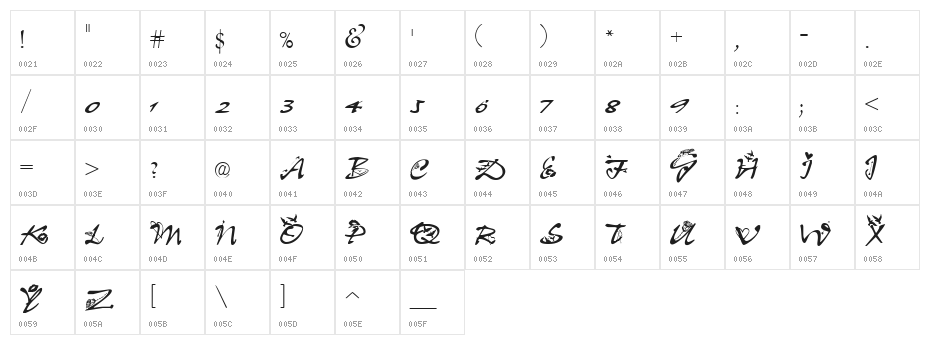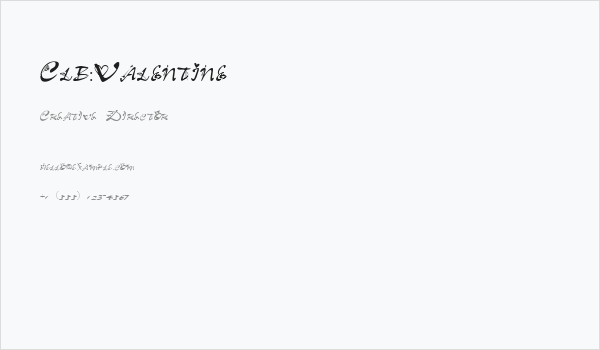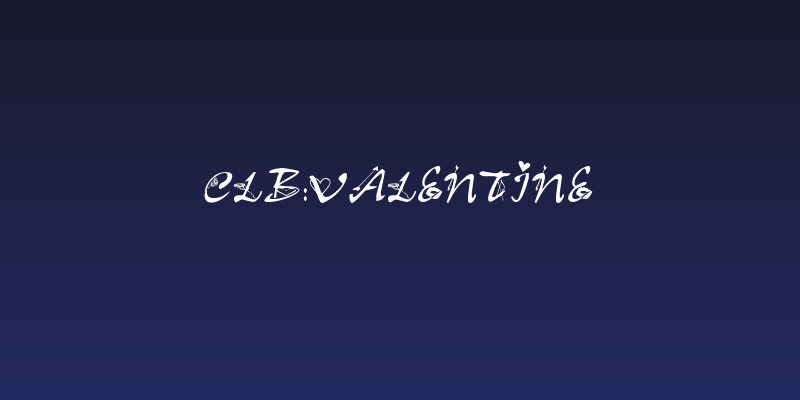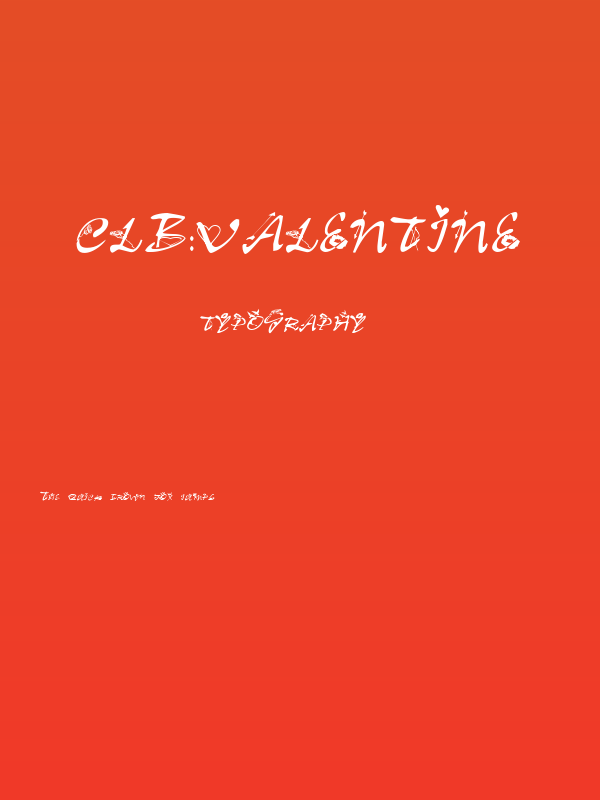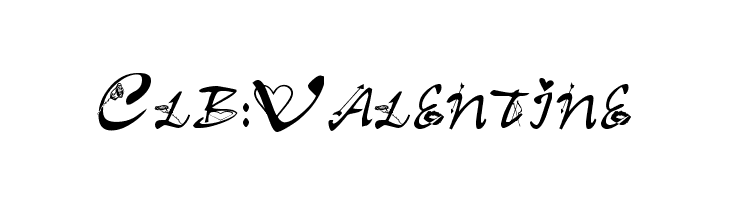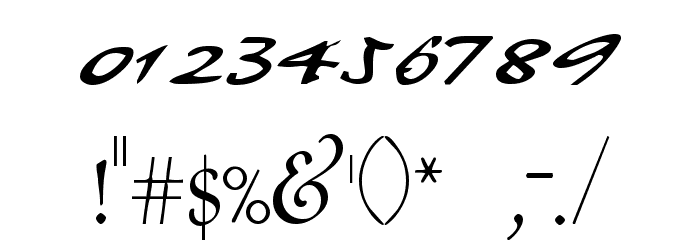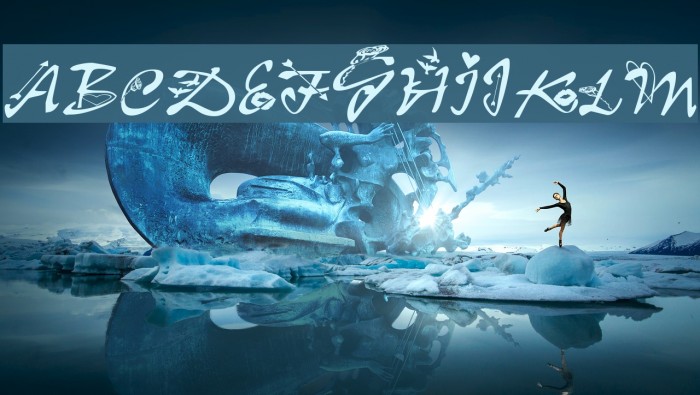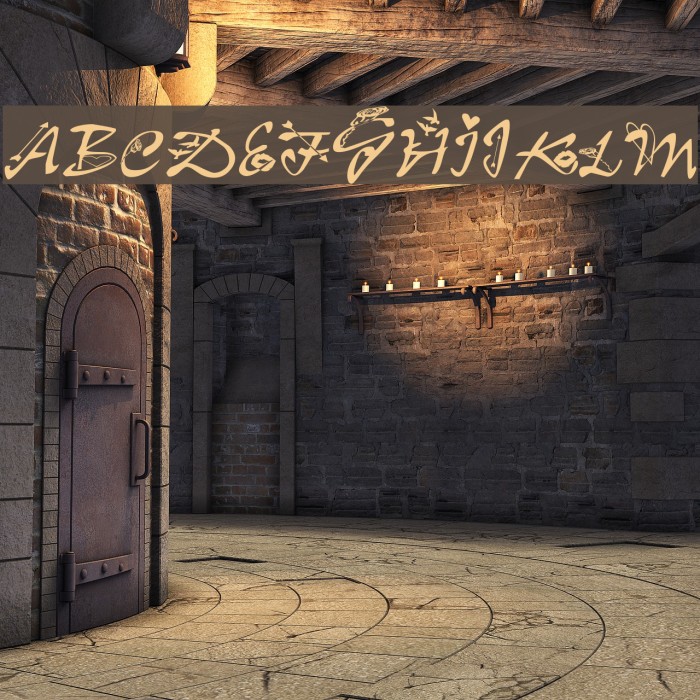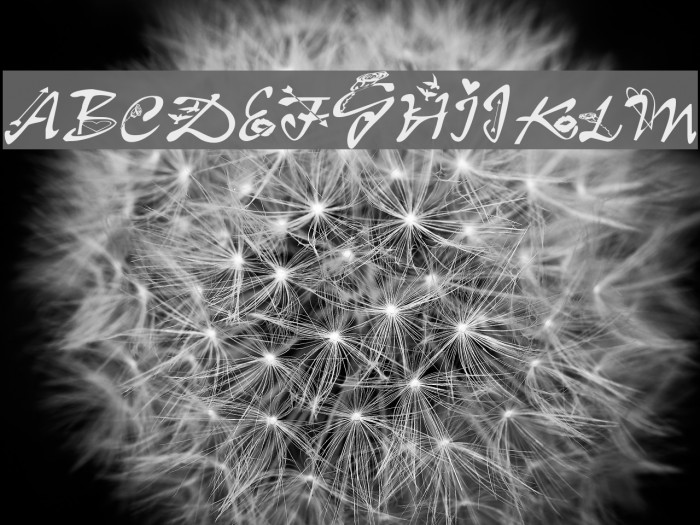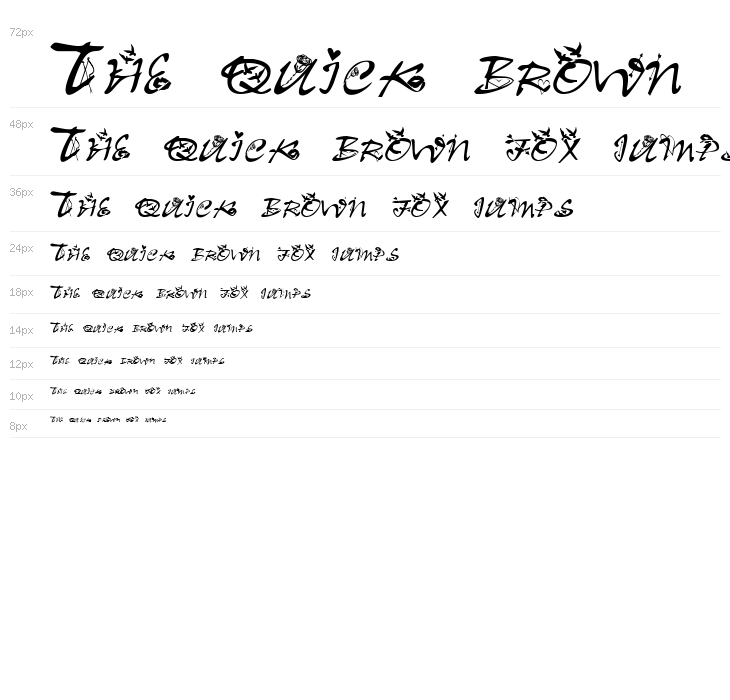
Clb:Valentine Font
Clb:Valentine Description
This font features an ornate and decorative style, incorporating heart motifs and floral elements into the design of each character. The uppercase and lowercase letters are embellished with intricate details, giving them a romantic and whimsical appearance. The numbers and special characters maintain the same decorative theme, ensuring a cohesive look across all glyphs. The overall design is playful yet elegant, making it suitable for projects that require a touch of romance or fantasy.
| Use Case | Headlines, Invitations, Greeting Cards |
| Proposed Projects | Ideal for wedding invitations, Valentine's Day cards, romantic event branding, or fantasy-themed projects. |